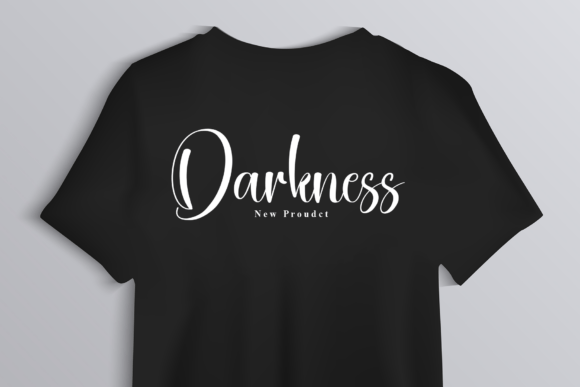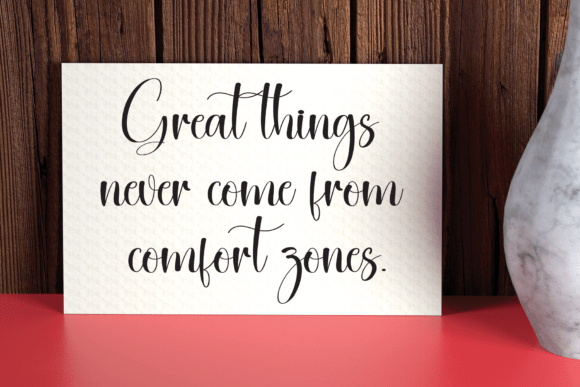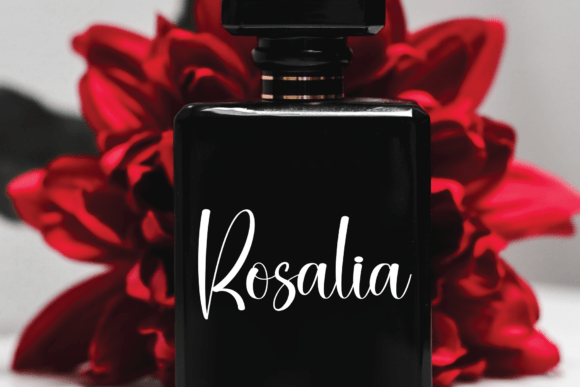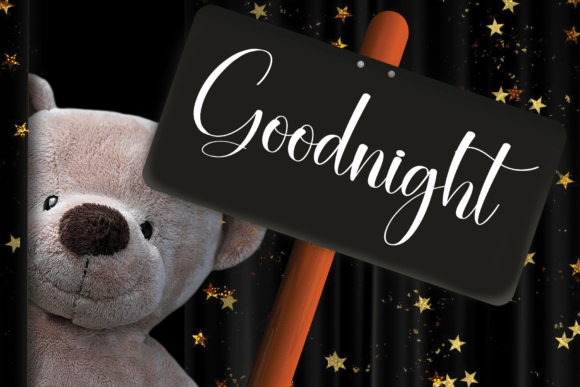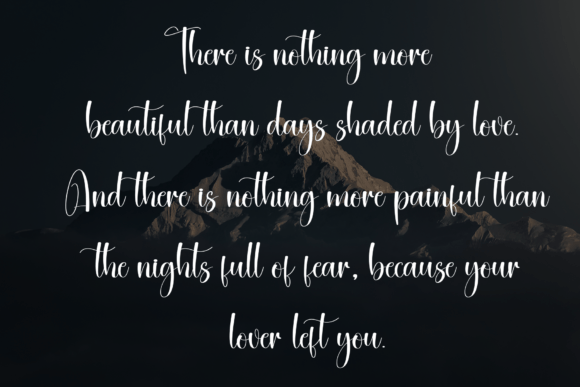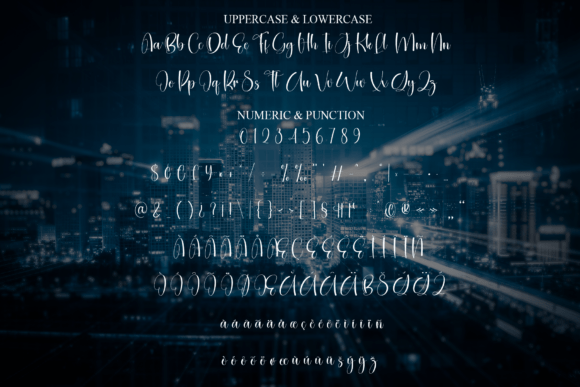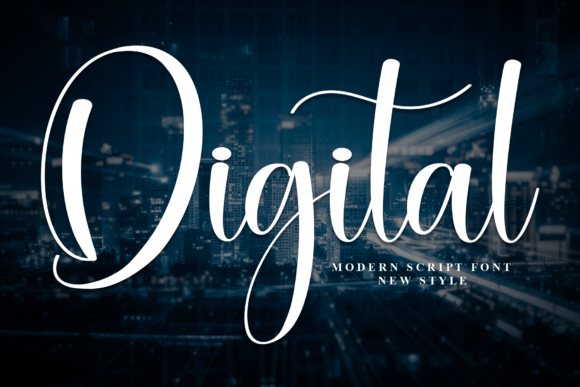
The Beauty of Digital Fonts: Elevate Your Designs with Elegant Handwritten Scripts
In the world of digital design, fonts play a crucial role in conveying the tone and personality of a project. Among the numerous font styles available, handwritten script fonts have gained immense popularity for their unique ability to add a touch of elegance and sophistication. One such stunning font is the beautiful handwritten script font we’re going to explore today. This gorgeous font is designed to bring a sense of refinement and charm to your designs, making it perfect for a wide range of applications.
The Characteristics of a Beautiful Handwritten Script Font
This lovely font boasts fluid, natural strokes and graceful curves that mimic authentic handwriting. Its stylish, flowing design adds a touch of sophistication while maintaining a warm, personal feel. The font’s elegant appearance makes it an excellent choice for designers and crafters looking to add a dash of personality to their projects.
This versatile font can be used in a multitude of applications, including:
• Wedding Invitations: Add a touch of romance and sophistication to your wedding invitations, save-the-date cards, and other wedding-related materials.
• Branding: Use this font to create a unique and memorable brand identity that reflects your company’s personality and values.
• Packaging: Elevate your product packaging with a beautiful, hand-written font that adds a personal touch.
• Stationery: Create stunning stationery, such as letterheads, business cards, and thank-you cards, that exude elegance and refinement.
Why Choose a Handwritten Script Font?
Handwritten script fonts have become increasingly popular in recent years, and for good reason. They offer a unique set of benefits, including:
• Personality: Handwritten script fonts add a touch of personality and humanity to your designs, making them more relatable and engaging.
• Elegance: These fonts exude elegance and sophistication, making them perfect for high-end brands and luxury products.
• Versatility: Handwritten script fonts can be used in a wide range of applications, from formal to informal, and can be easily paired with other font styles.
Tips for Using Handwritten Script Fonts Effectively
To get the most out of this beautiful handwritten script font, follow these tips:
• Use it sparingly: Use the font sparingly to add emphasis and create visual interest. Overusing the font can make your design look cluttered and messy.
• Pair it with other fonts: Pair the handwritten script font with other font styles to create a visually appealing contrast.
• Consider the context: Consider the context in which the font will be used. For example, a more formal font may be suitable for a luxury brand, while a more playful font may be better suited for a children’s product.
This beautiful handwritten script font is a versatile and elegant addition to any design project. With its fluid, natural strokes and graceful curves, it mimics authentic handwriting, making it perfect for a wide range of applications. Whether you’re a designer, crafter, or DIY enthusiast, this font is sure to bring a touch of sophistication and personality to your projects. So why not give it a try and see the difference it can make?
In conclusion, the use of digital fonts has become an essential aspect of design, and handwritten script fonts have gained a special place in the hearts of designers and crafters. With their unique ability to add a touch of elegance and personality to a project, it’s no wonder they’re so popular. So, next time you’re looking to elevate your design, consider using a beautiful handwritten script font like this one.